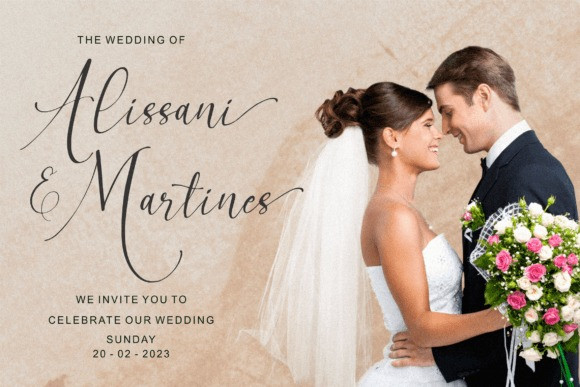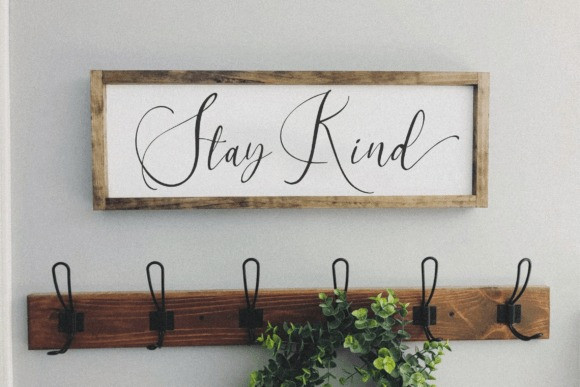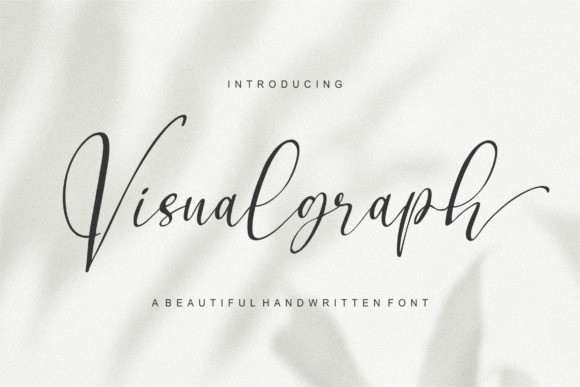
Visualgraph Font
Visualgraph Script Font is a Beautiful Handwritten Font. It perfect for product packaging, branding project, megazine, social media, wedding, or just used to express words above the background.